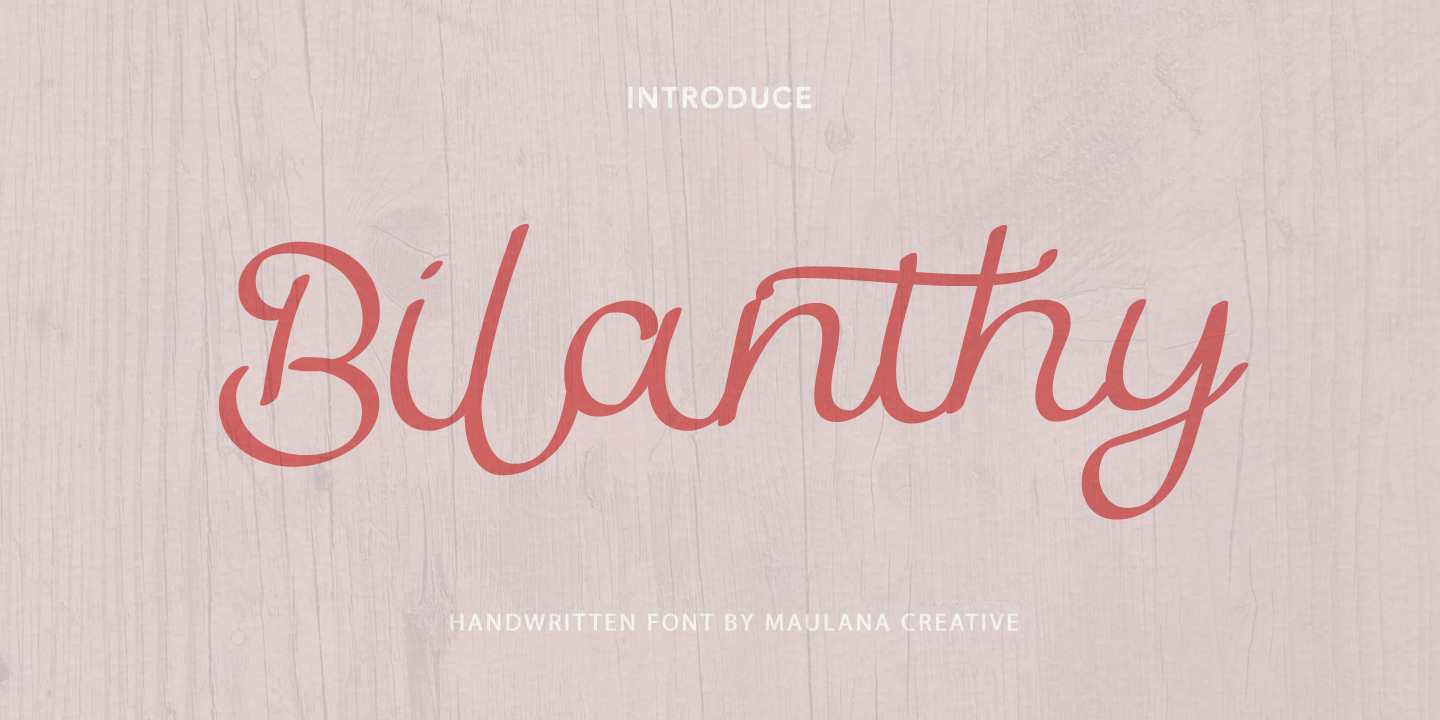
Bilanthy Font excels in elegant design applications including luxury brand identity, sophisticated fashion marketing, refined wedding invitations, upscale beauty products, premium lifestyle branding, elegant boutique signage, cultural arts materials, and distinguished advertising campaigns that require typography with refined character and timeless sophistication.
What makes Bilanthy Font exciting is its remarkable ability to convey refined elegance and sophisticated beauty through gracefully balanced letterforms that embody both contemporary style and timeless appeal. This distinguished typeface features elegant characteristics with refined curves and sophisticated proportions that instantly communicate luxury, cultural refinement, and aesthetic excellence. The font's sophisticated personality and elegant appeal make it perfect for brands seeking to establish premium positioning and communicate values of refinement, beauty, and cultural sophistication to discerning audiences who appreciate fine design.
Bilanthy Font family encompasses multiple weights and elegant variations designed for comprehensive luxury communication. The family typically includes thin, light, regular, medium, bold, and decorative weights, complemented by refined italics, elegant alternates, and extensive character sets with sophisticated flourishes that enhance its luxurious aesthetic and provide maximum design elegance.
Luxury brand designers consistently select Bilanthy Font Free Download for projects requiring typography that embodies sophisticated elegance and refined beauty. This distinguished typeface adapts magnificently across premium applications, from digital luxury platforms to exclusive print materials, delivering consistent brand messaging with unmistakable elegant authority and sophisticated appeal. The font's gracefully crafted letterforms ensure exceptional readability while maintaining the refined presence that luxury brands demand. Elite creative agencies worldwide rely on this sophisticated typeface to communicate brand values of elegance, refinement, and cultural excellence. Elevate your brand's sophisticated presence with Bilanthy Font and create memorable visual communications that resonate with audiences who appreciate refined elegance, sophisticated beauty, and the timeless appeal of truly distinguished design that embodies cultural sophistication and aesthetic excellence.